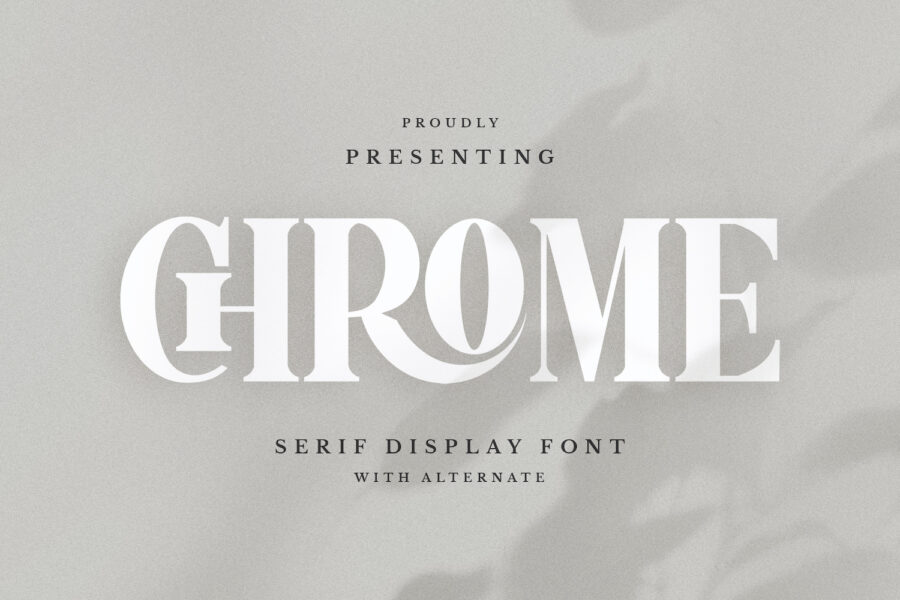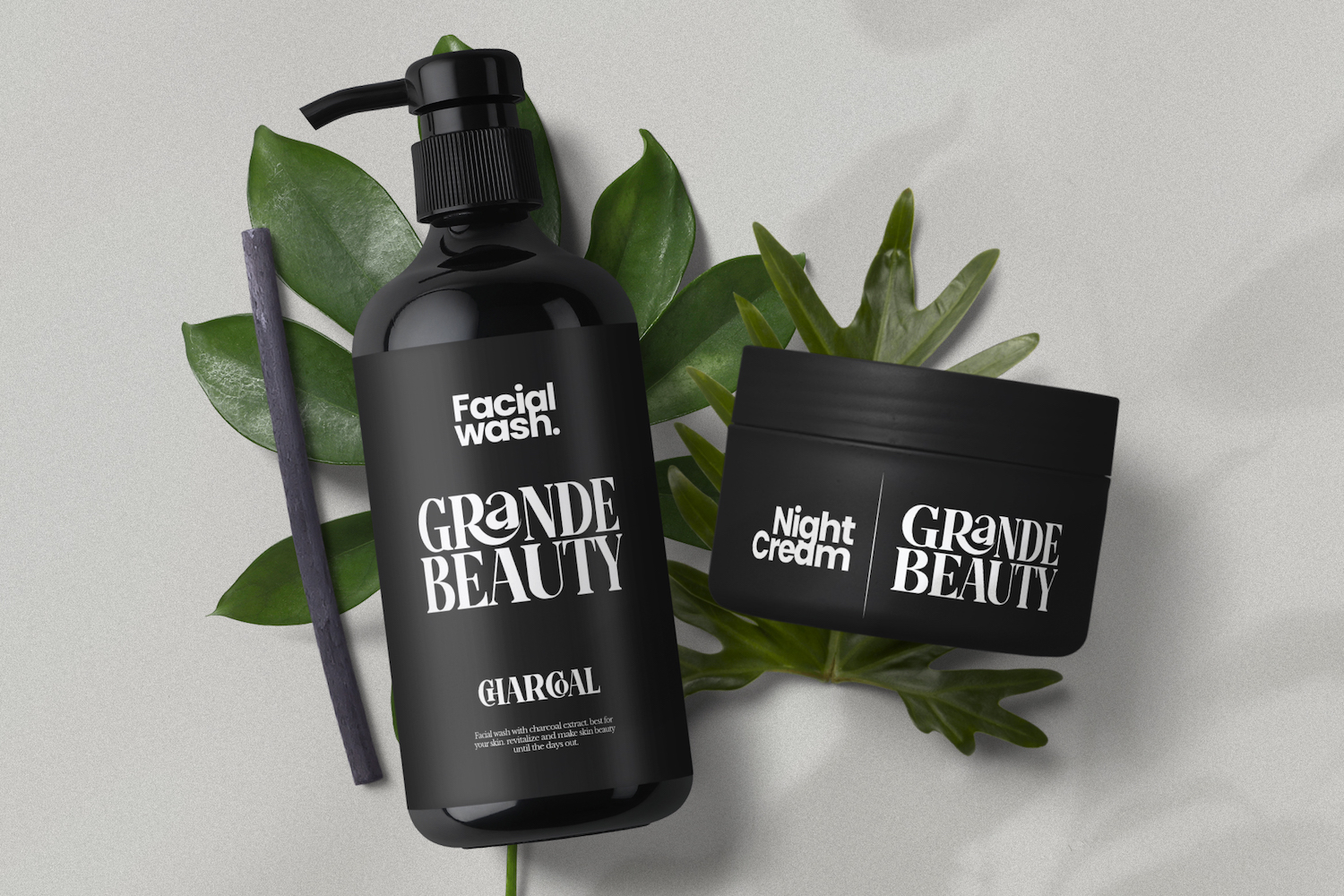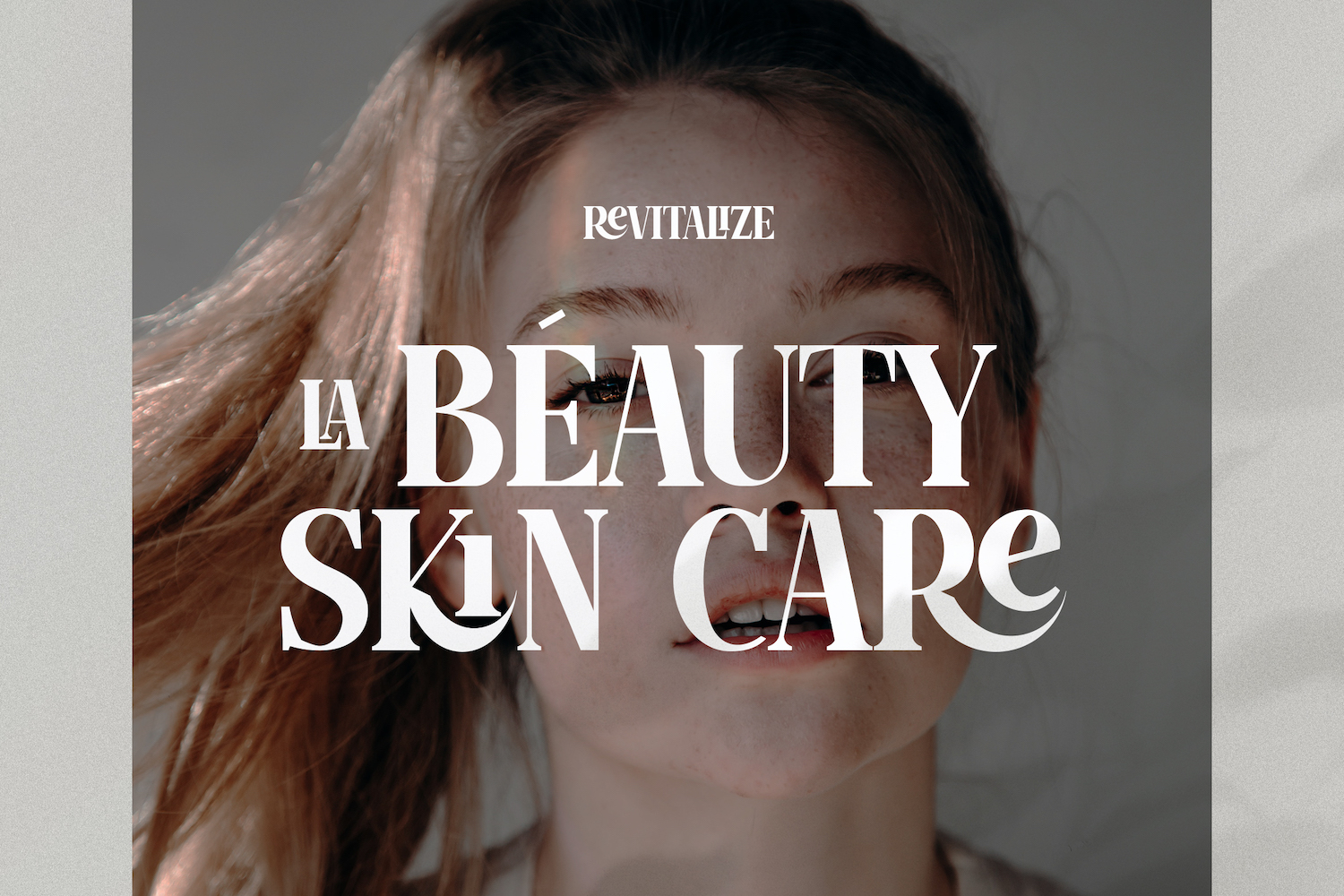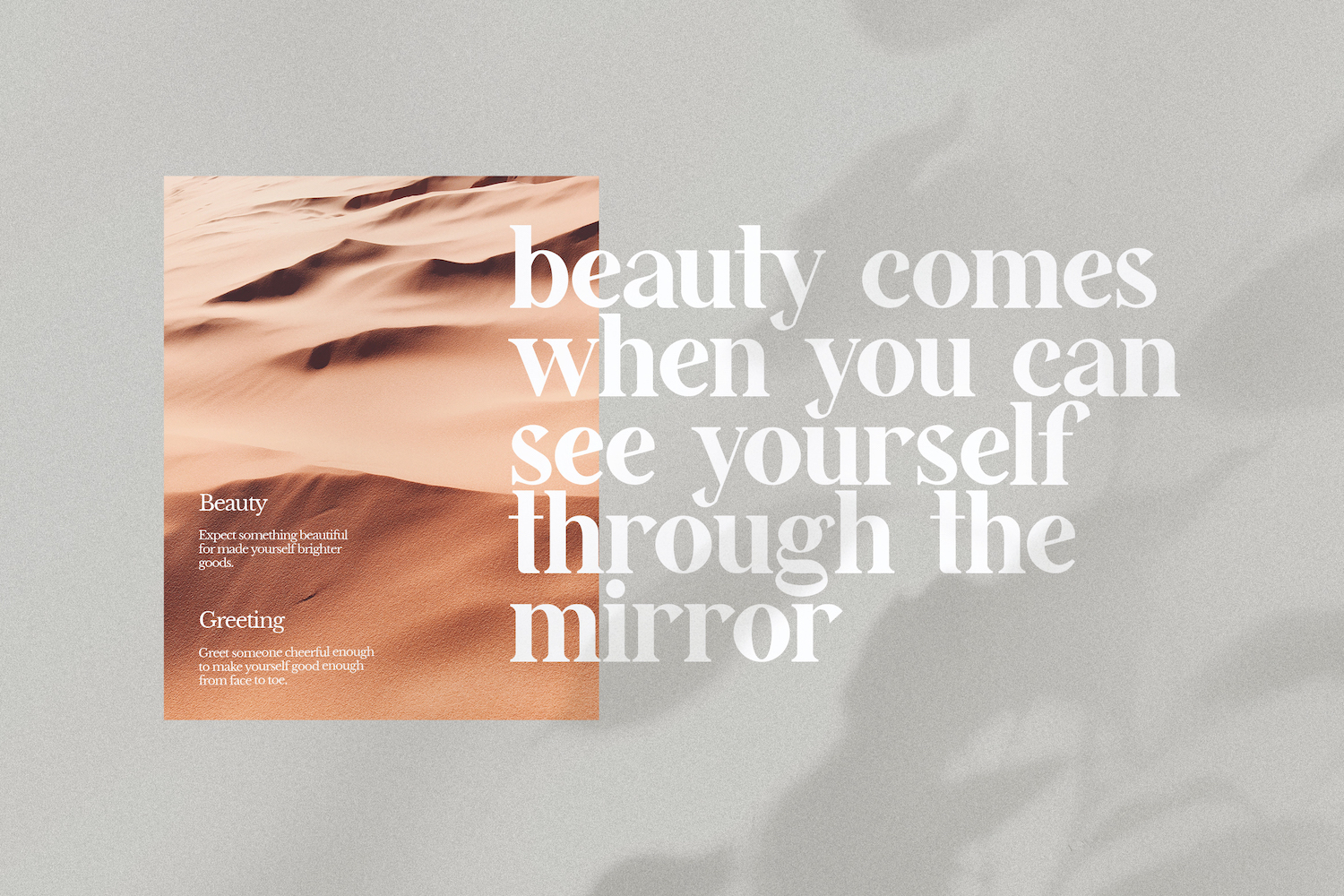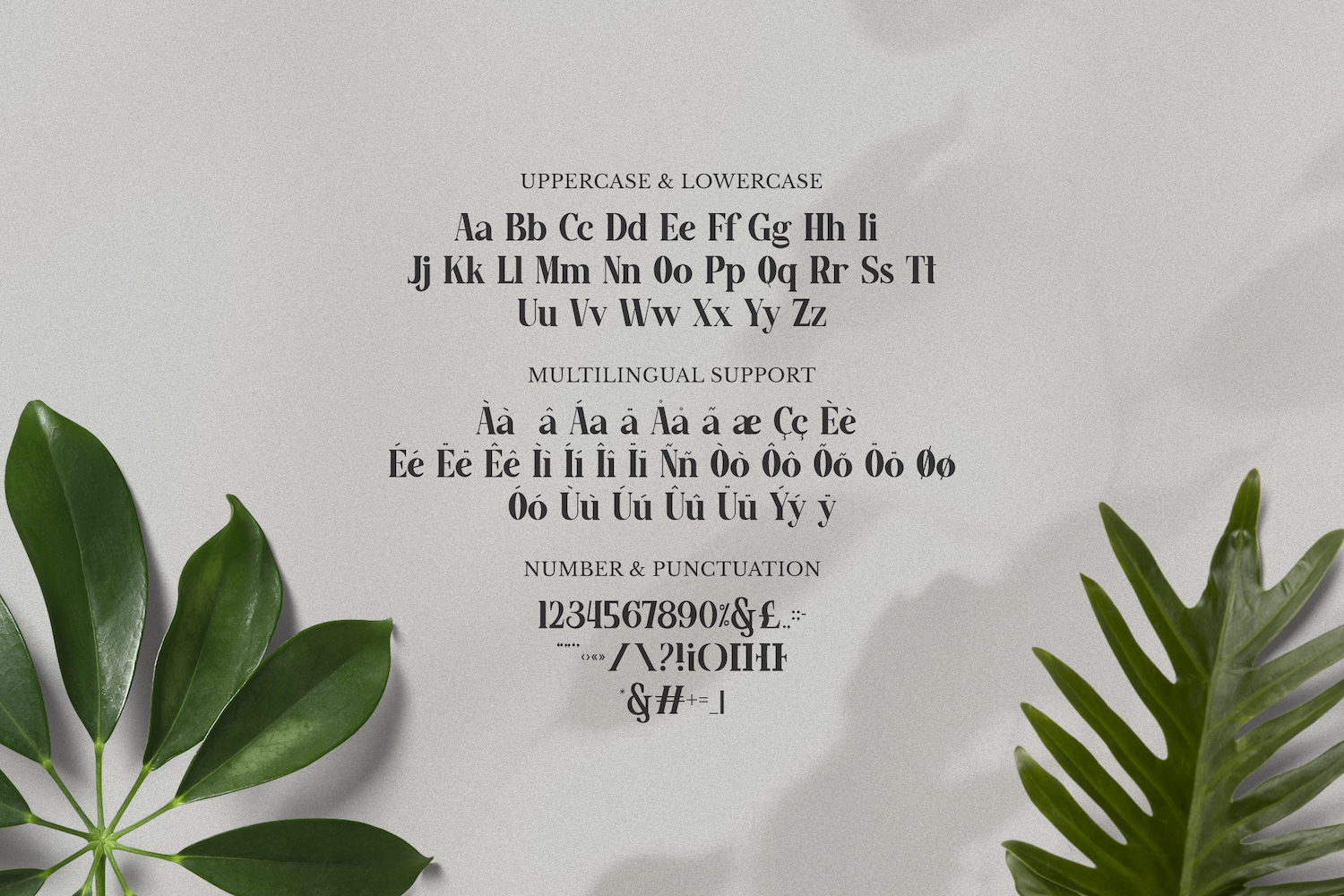
Chrome is a sophisticated serif display font that blends elegance with bold visual impact. Featuring strong vertical contrast and carefully crafted curves, Chrome stands out with its striking alternates that introduce an expressive personality to each word. This font is ideal for branding, packaging, beauty products, and editorial layouts that aim to radiate class and modern charm.
With its multilingual support, stylish alternates, and complete punctuation, Chrome offers versatility for both print and digital use. Whether you’re designing a luxury skincare label, an elegant fashion editorial, or upscale promotional material, Chrome provides the perfect combination of refinement and creativity.
Chrome